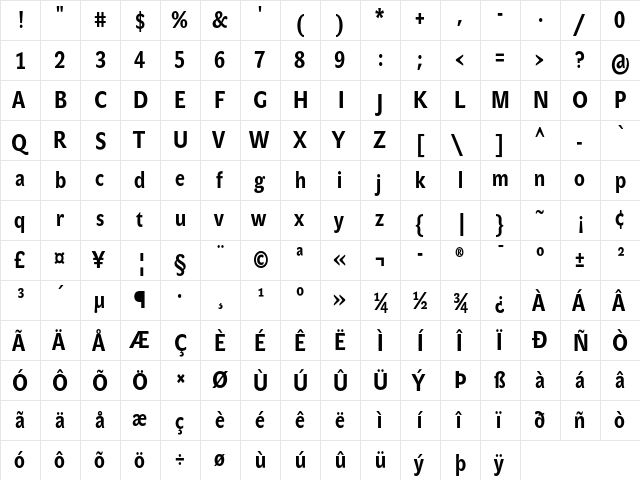
JohnSansCond Text Pro Bold Font Preview
JohnSansCond Text Pro Bold
JohnSansCond Text Pro Bold Font Details
Design Context for JohnSansCond Text Pro Typeface
JohnSansCond Text Pro offers clean, dependable letterforms without strong stylistic allegiance, making it a practical choice for designers who need flexibility. Its bold stroke weight gives it real presence on the page. Its narrow stance lets it pack a punch even in space-constrained designs.
Pro Tip: Pair JohnSansCond Text Pro with a font of contrasting weight or personality to build a more expressive typographic hierarchy.